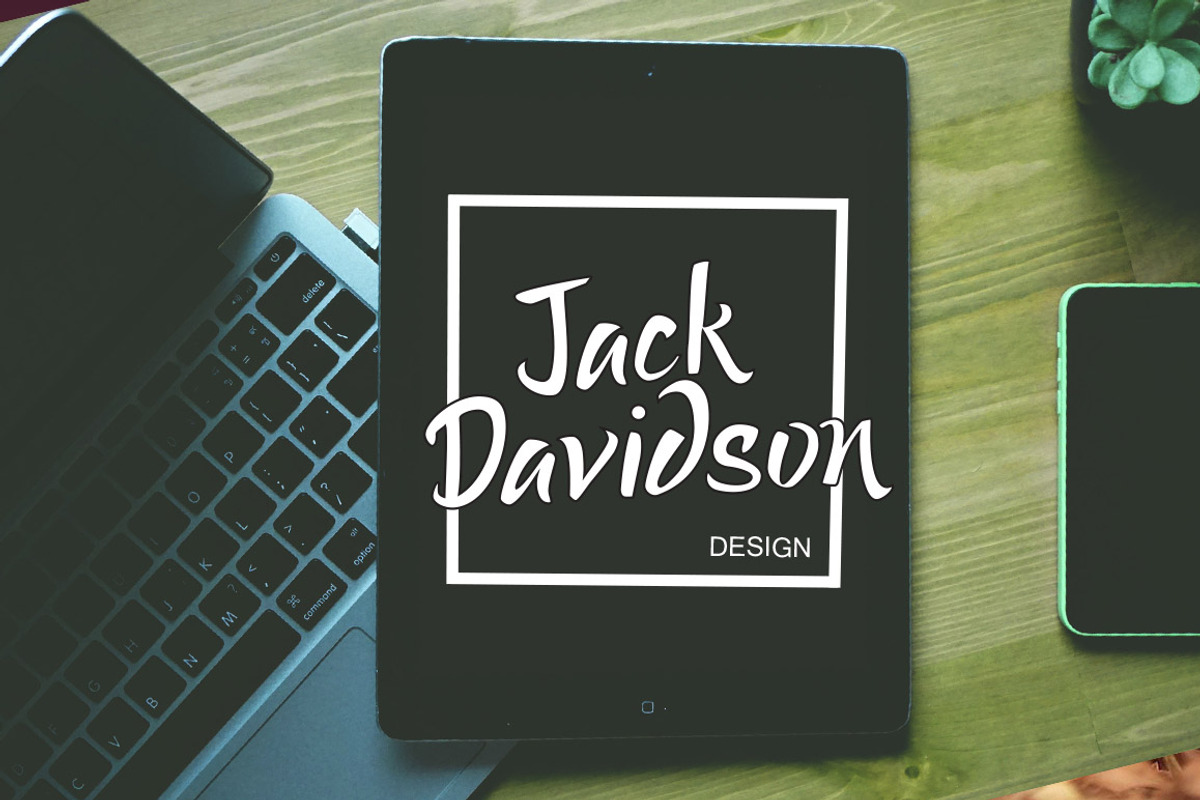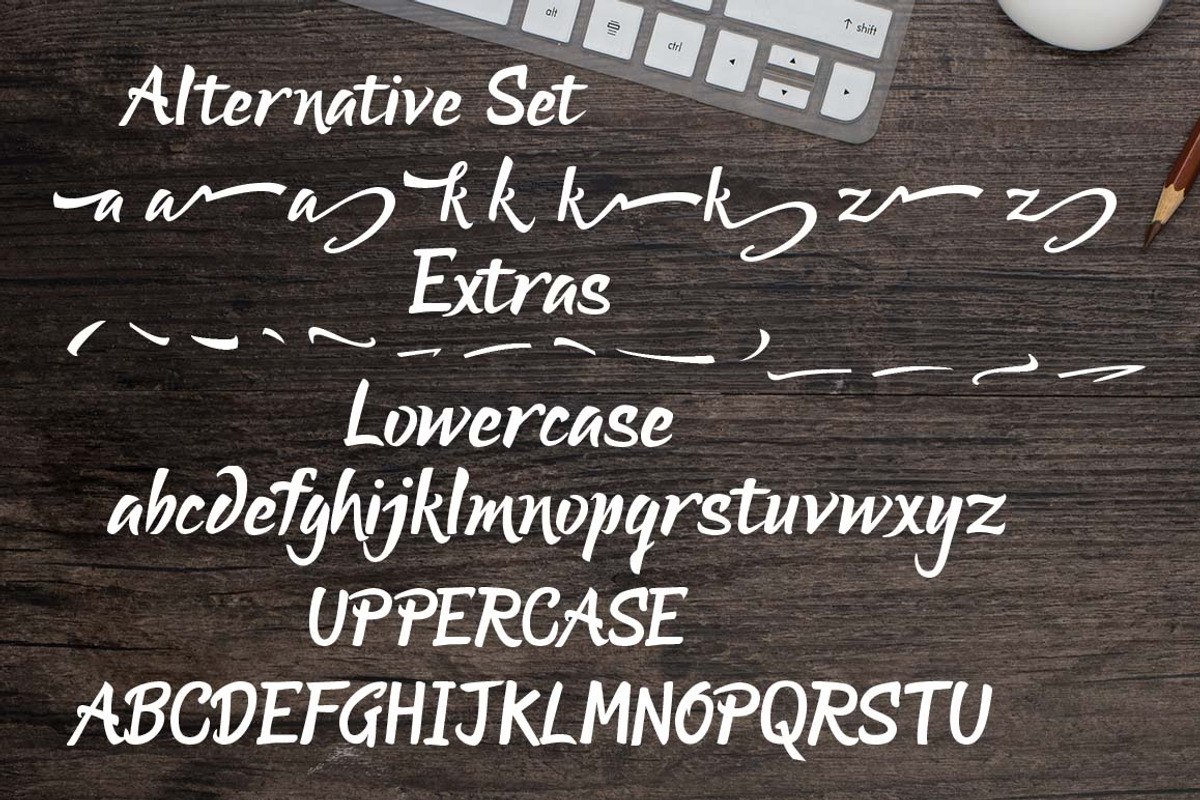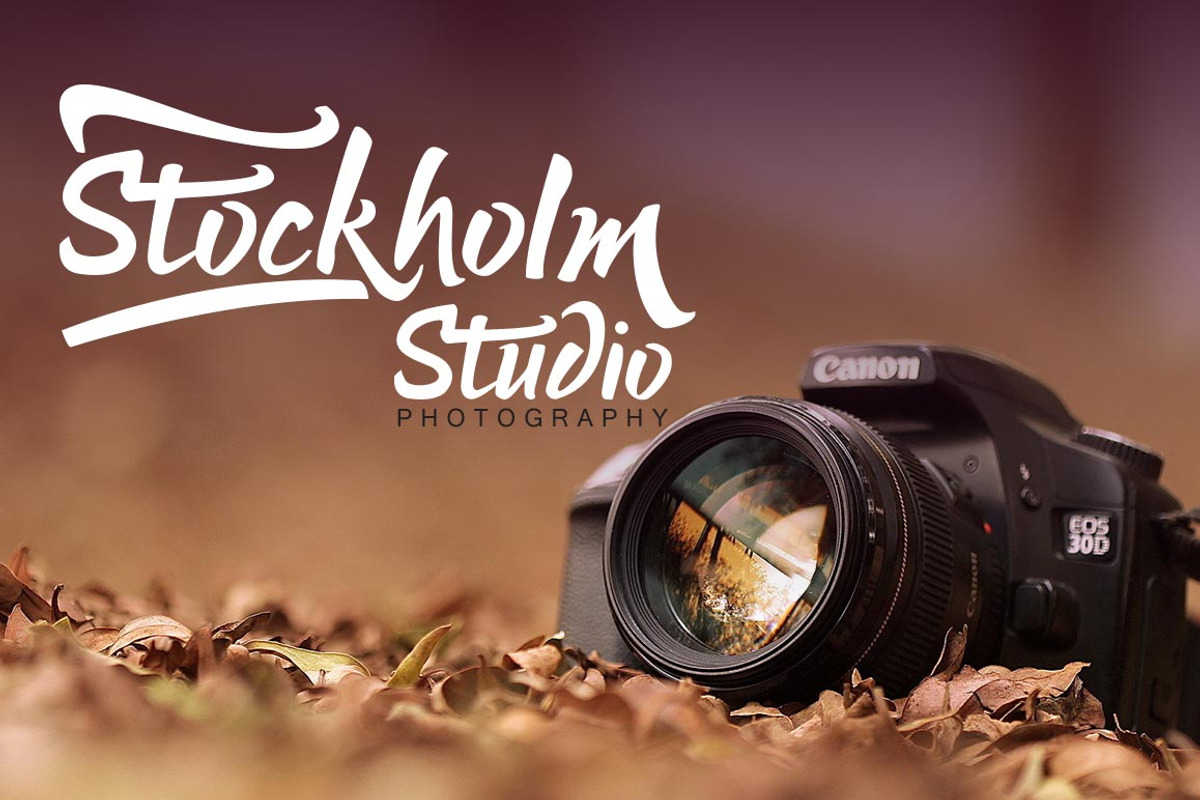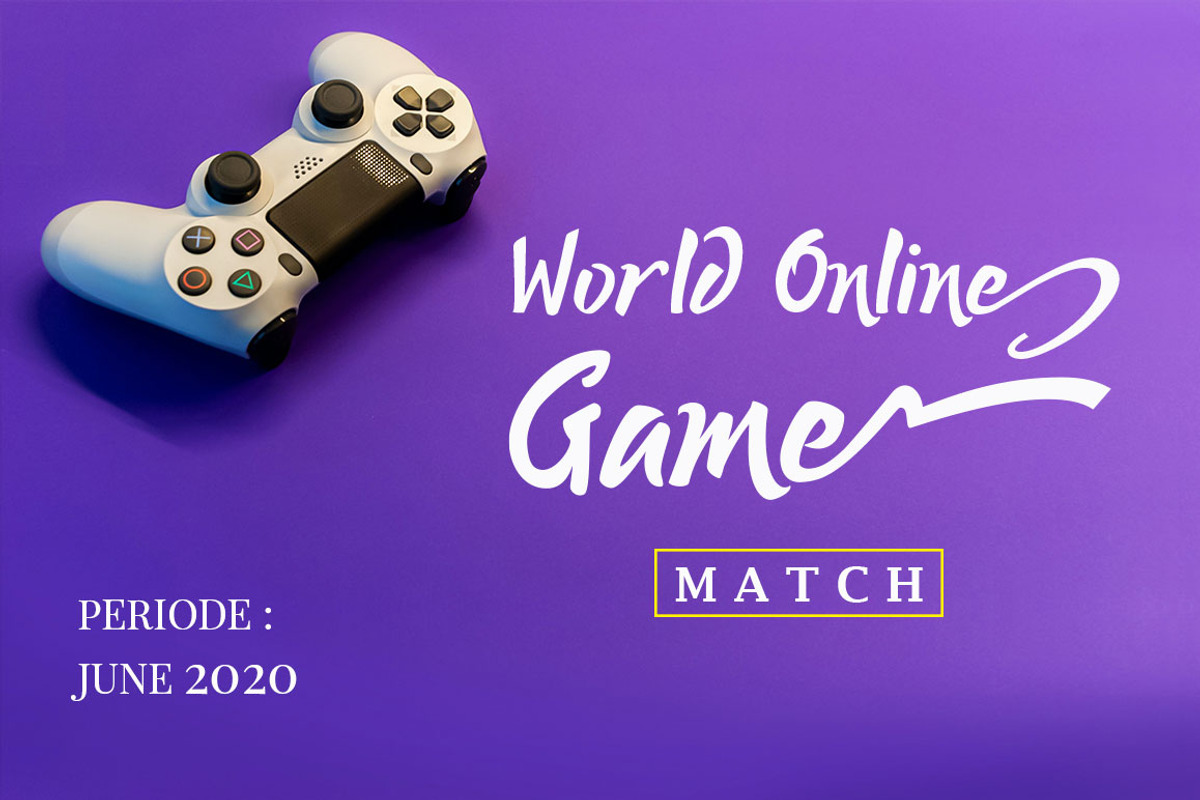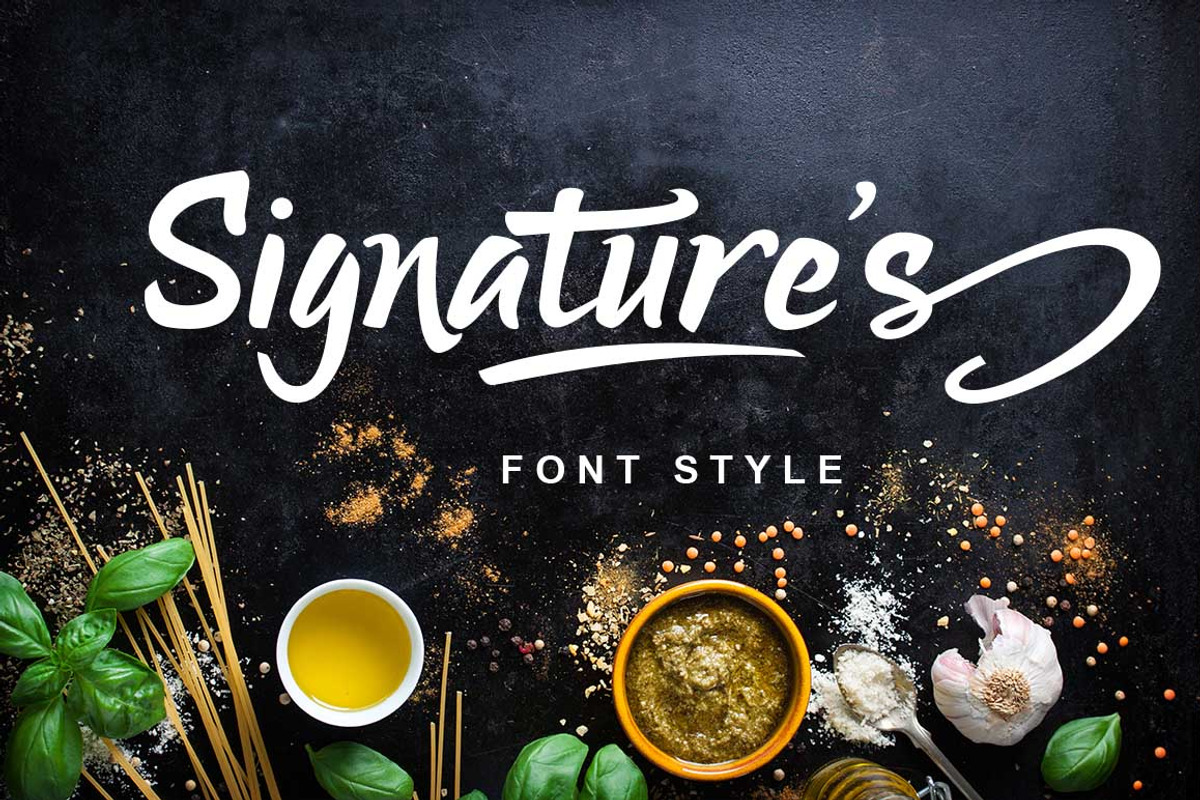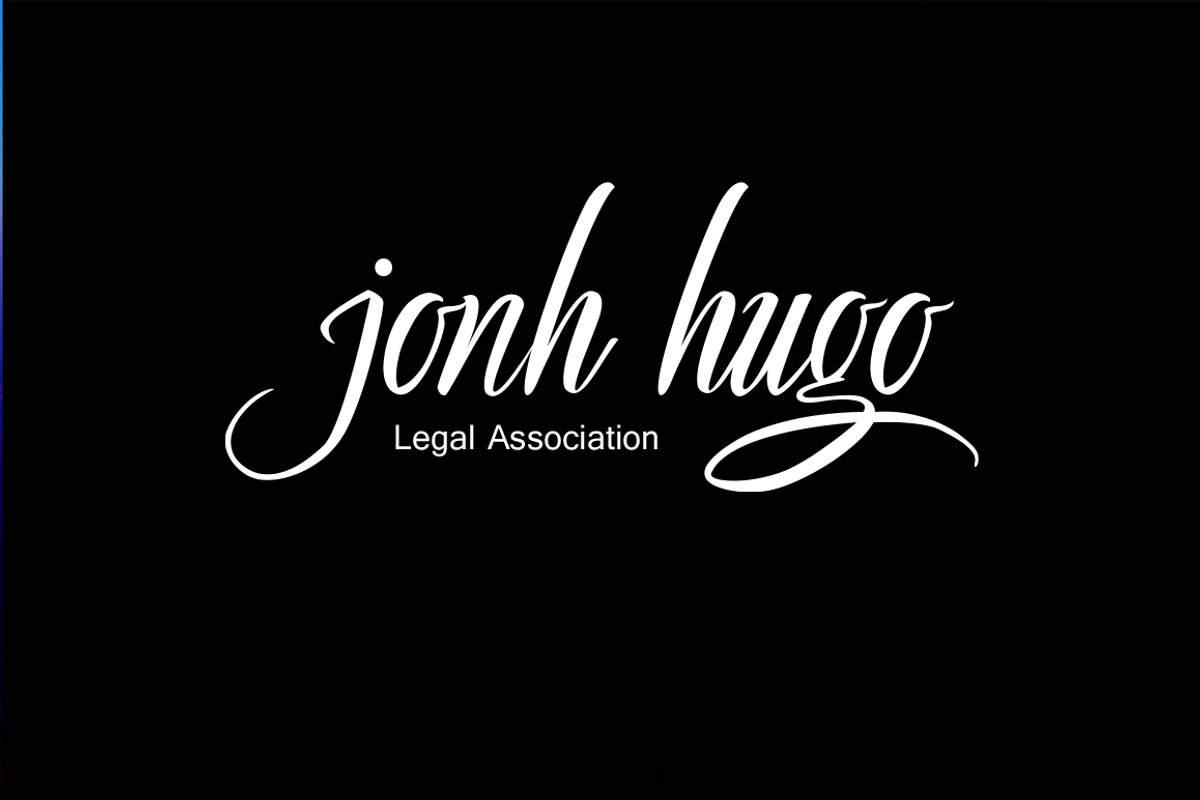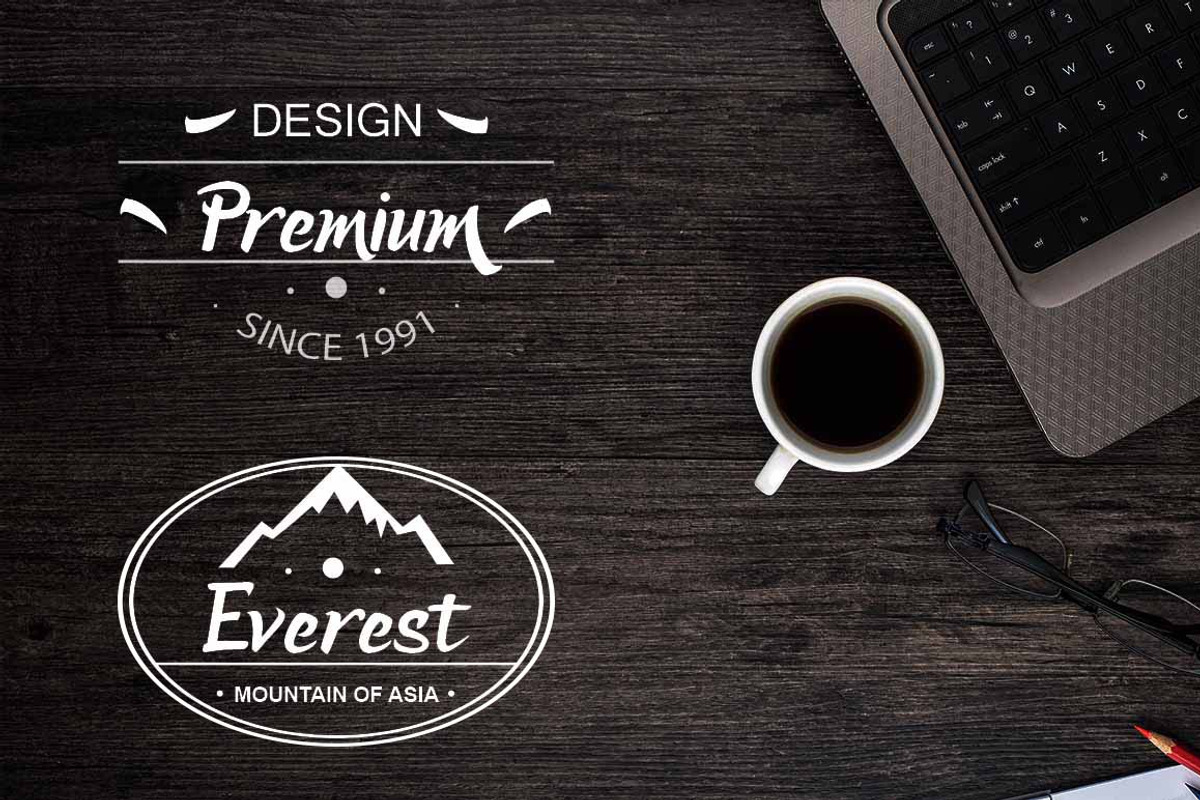
Lucky Dream Bold "Font Duo"
Lucky Dream Bold "Font Duo" by Putra Khan is a font selected for branding, posters, packaging, typography.
Why Lucky Dream Bold "Font Duo" is worth a look
Lucky Dream Bold "Font Duo" by Putra Khan fits naturally into Branding, posters, packaging, typography.